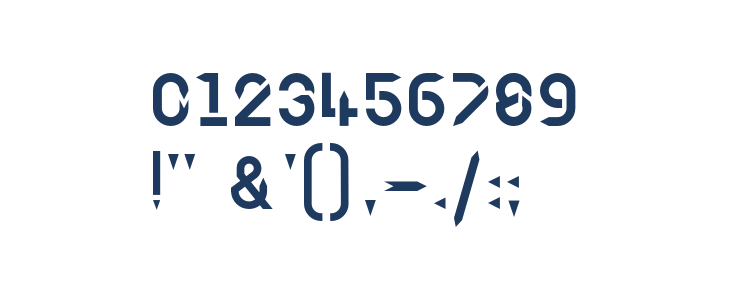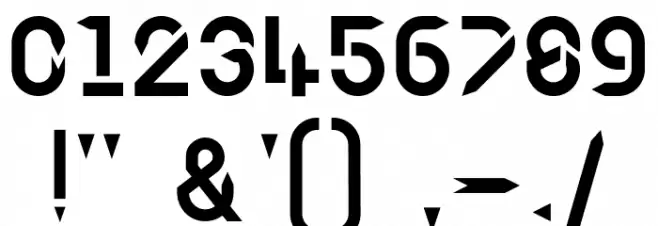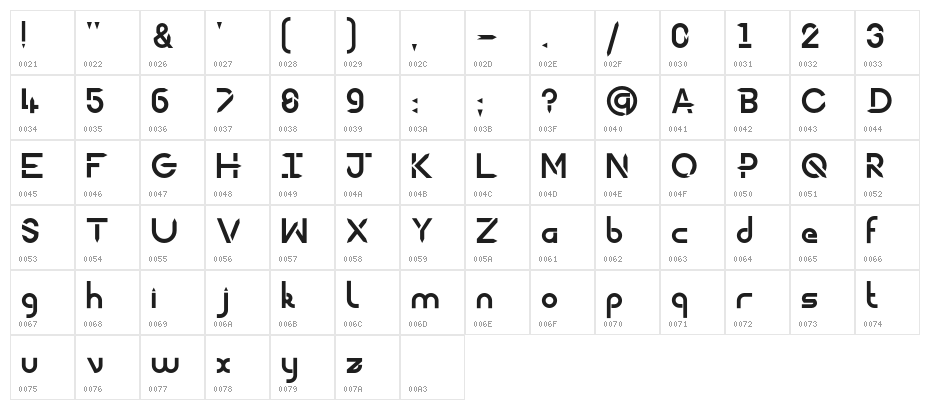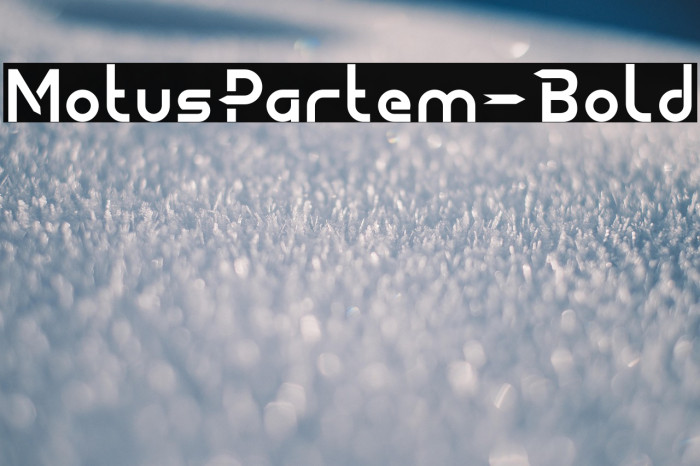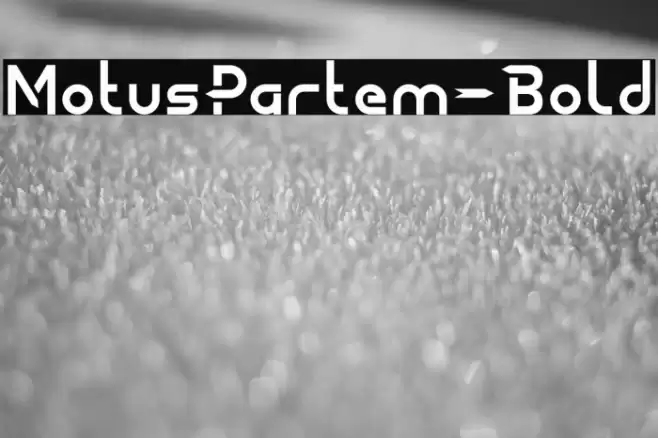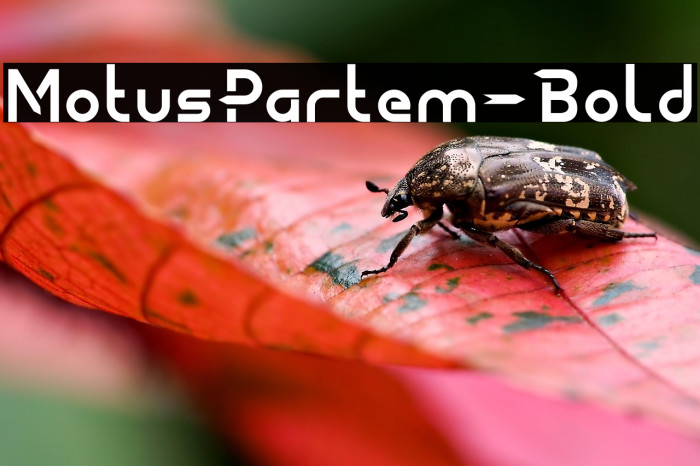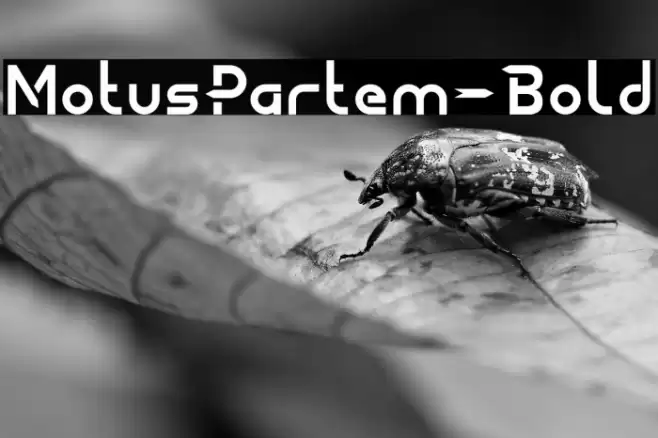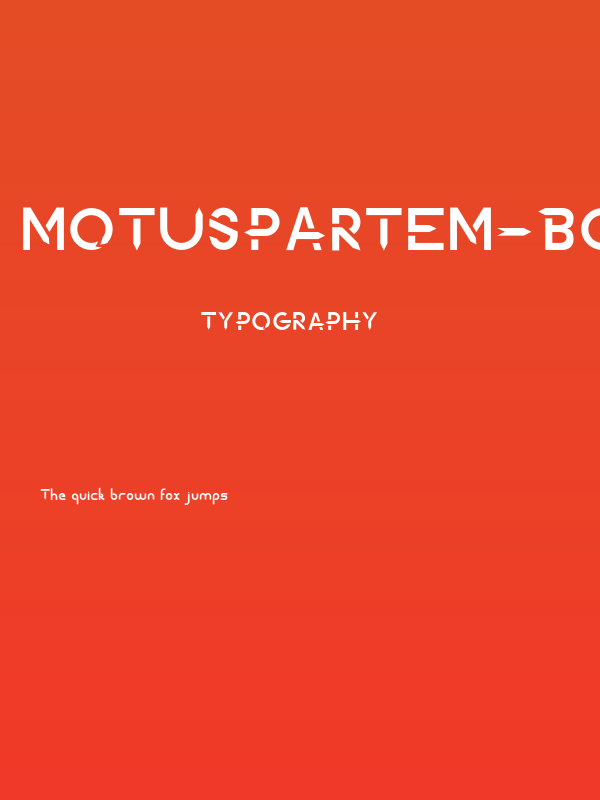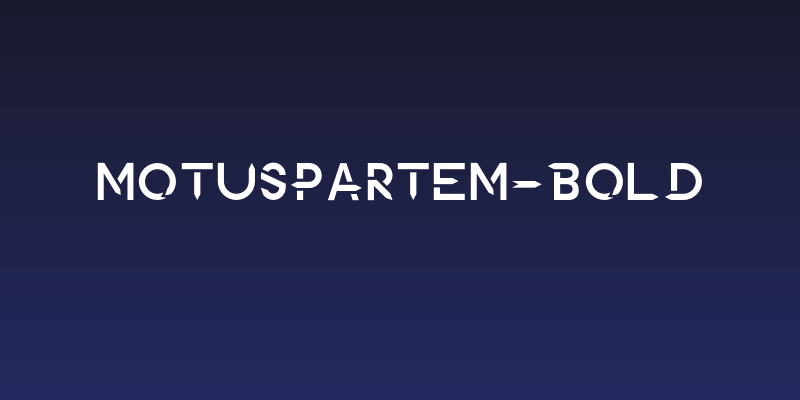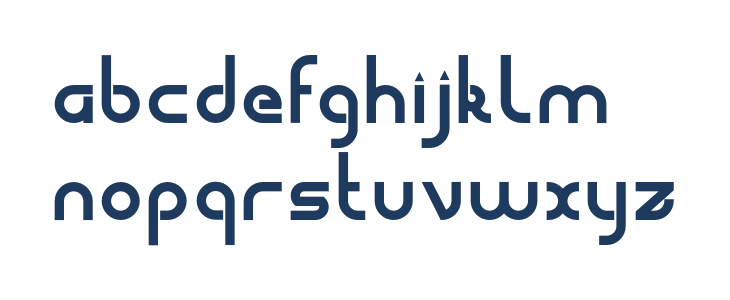
MotusPartem-Bold Font
MotusPartem-Bold Description
This font features a bold and modern design with a geometric and futuristic aesthetic. The uppercase letters are characterized by sharp angles and unique cutouts, giving them a dynamic and edgy appearance. The lowercase letters maintain a consistent style, with smooth curves and minimalistic forms that complement the uppercase set. The numerals are distinct, with a similar angular style that ensures readability while maintaining the overall theme. Special characters are creatively designed, incorporating the same geometric elements. This font is ideal for projects that require a contemporary and striking visual impact.